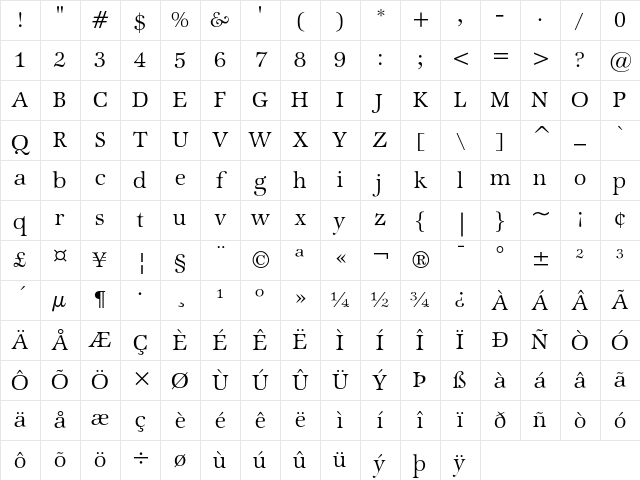
ITC Zapf International Light
ITC Zapf International Family
ITC Zapf International Light
Design Context for ITC Zapf International
ITC Zapf International is a composed and adaptable typeface that performs quietly and consistently across a wide range of design contexts. Its slender proportions lend an understated elegance to any composition.